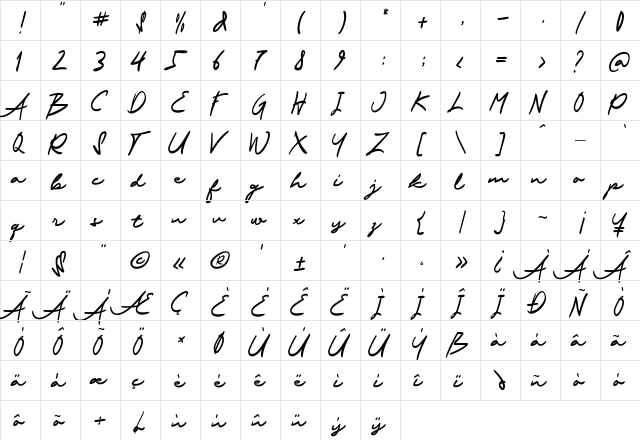
Pentecoste Demo Regular
Design Context for Pentecoste Demo Typeface
Pentecoste Demo is a composed and adaptable typeface that performs quietly and consistently across a wide range of design contexts.